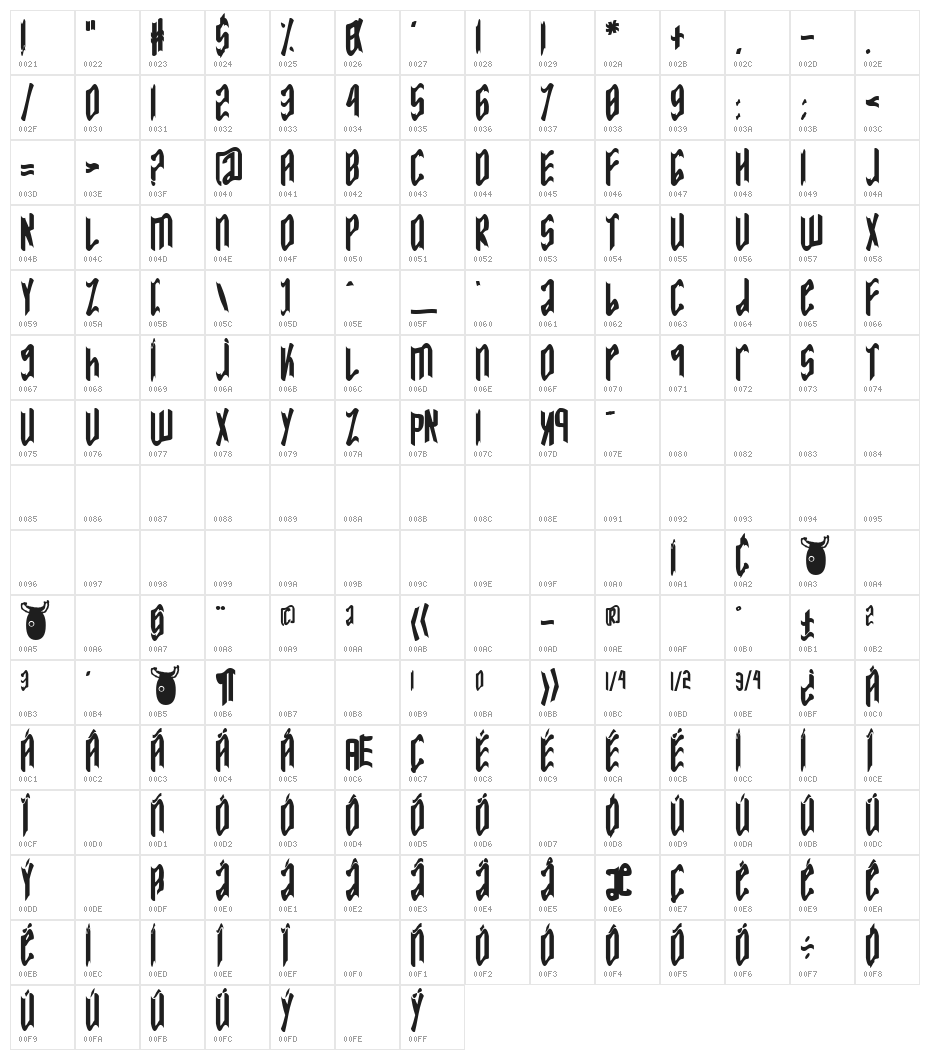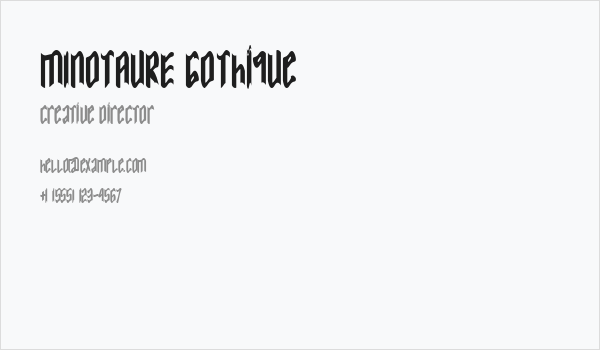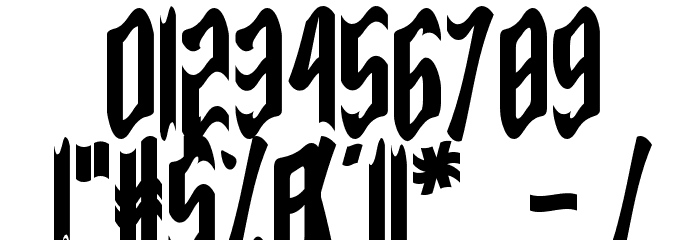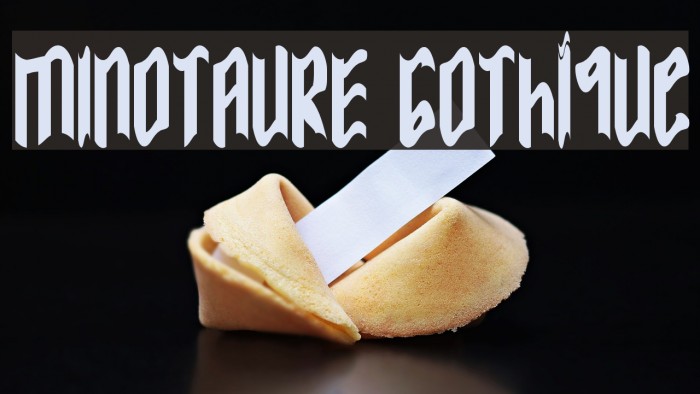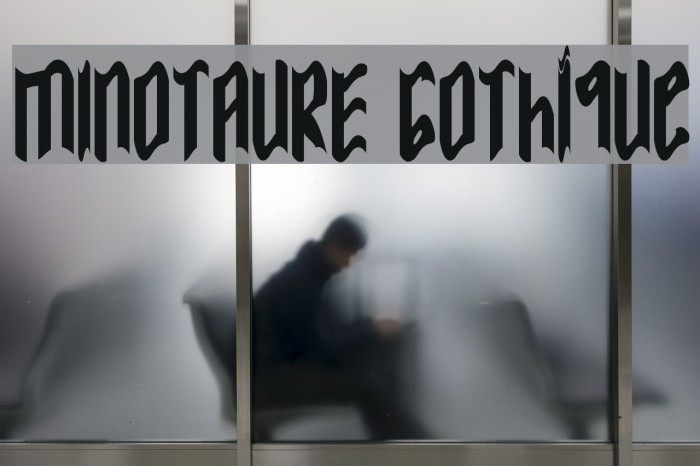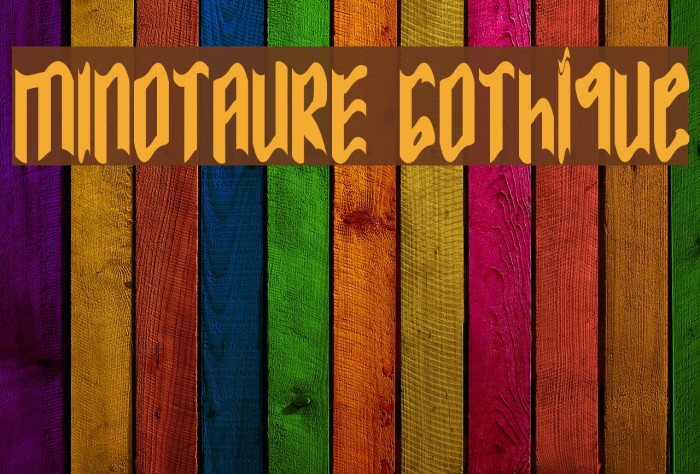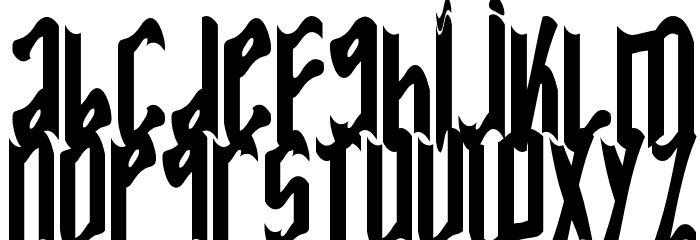
MINOTAURE Gothique Font
MINOTAURE Gothique Description
This font features a bold and dramatic Gothic style, characterized by its sharp, angular lines and intricate detailing. The uppercase letters are tall and imposing, with a strong vertical emphasis and pointed serifs that give them a striking appearance. The lowercase letters maintain the same Gothic aesthetic, with a slightly more condensed form that complements the uppercase. Numbers and special characters are designed with the same attention to detail, ensuring consistency across all elements. The overall look is reminiscent of medieval script, making it ideal for projects that require a historical or fantasy theme.
| Overall Style | Gothic, Medieval |
| Proposed Projects | Ideal for fantasy book covers, historical themed posters, or gothic-inspired branding. |